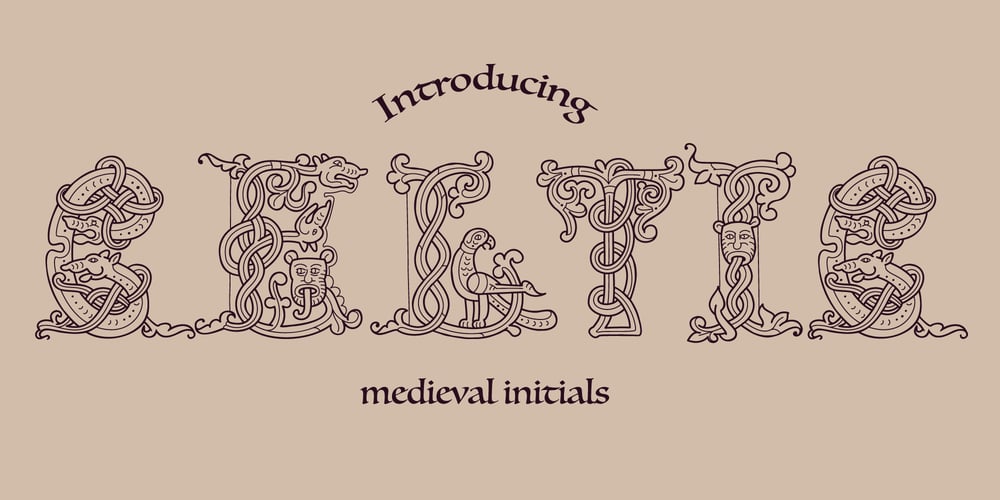
Celtic Lines Font Family was designed by Roman Korolev and published by Kaer. Celtic Lines contains 1 styles and family package options. Happy to introduce you Medieval initials set made of twisted beast, lions, birds and spiral pattern. Ornamental type for history identity, ethnic prints, tribal posters, etc.It’s not a color font! You can color glyphs yourself and use bright version.If you have any questions or issues, please contact me: kaer.pro@gmail.com Best, Roman.